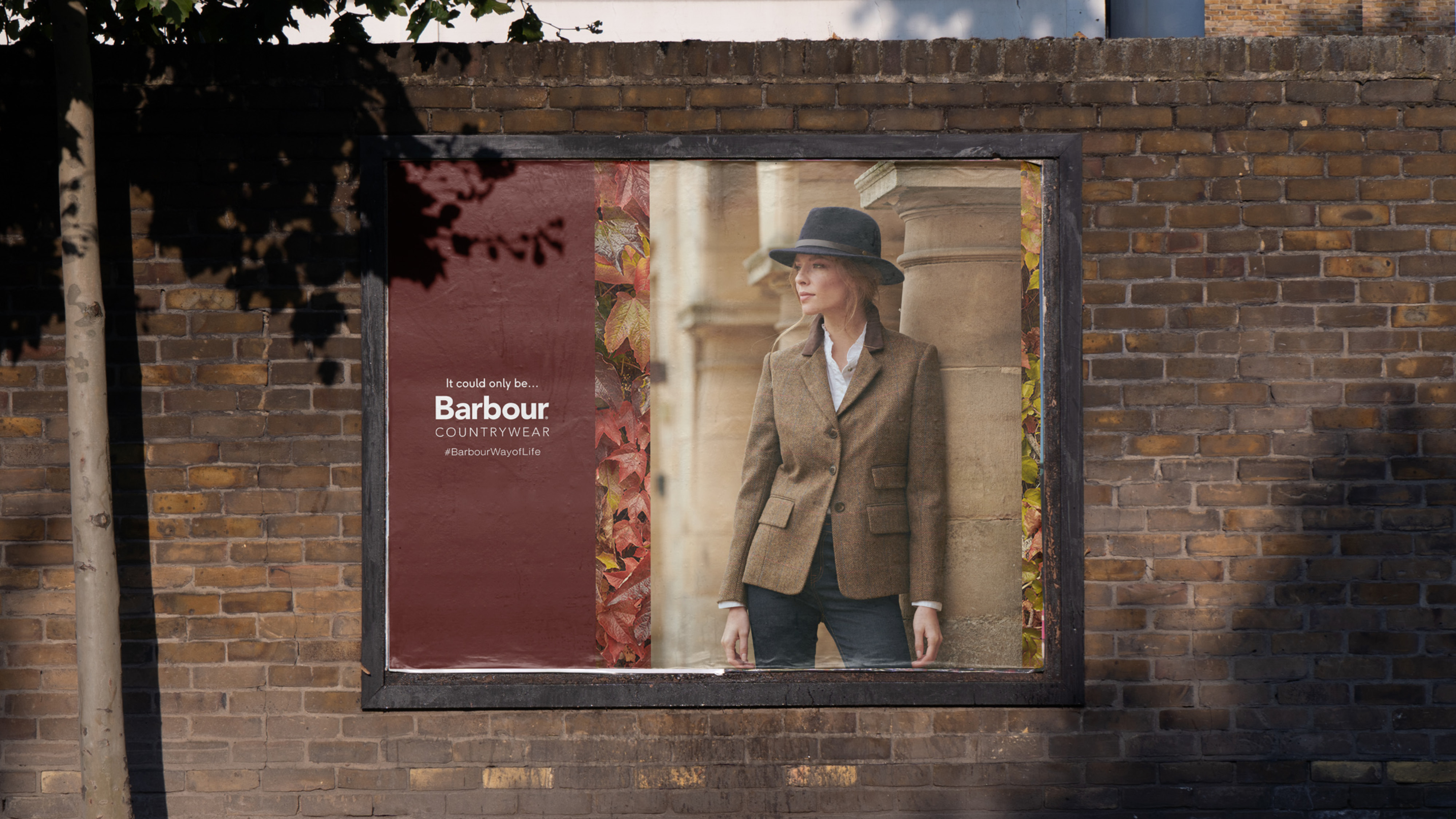
Barbour updated its brand font to F37 Ginger, with a modified ‘a’ glyph to add a modern twist whilst retaining a sense of stability and confidence.
F37 worked with Barbour to create a custom cut of F37 Ginger. One notable feature is the bespoke double storey 'a' that matches the Barbour logotype.
F37 Ginger is a friendly font and compliments Barbour's ageless image as well as their values.